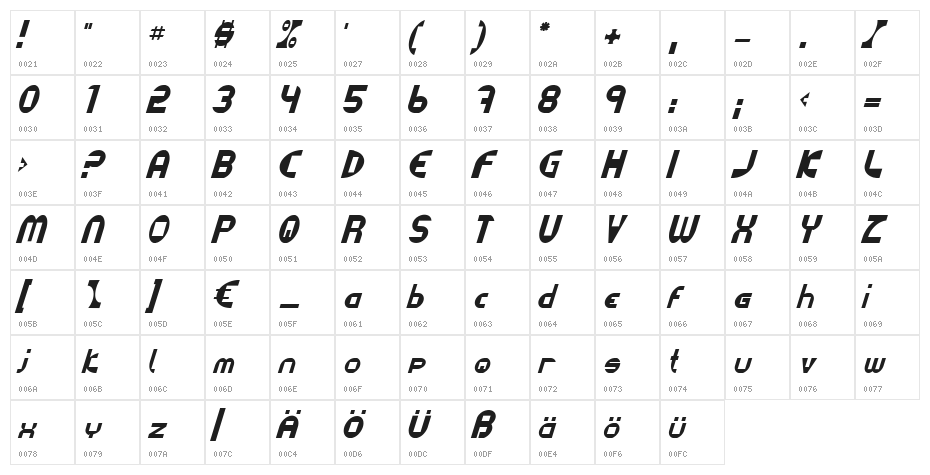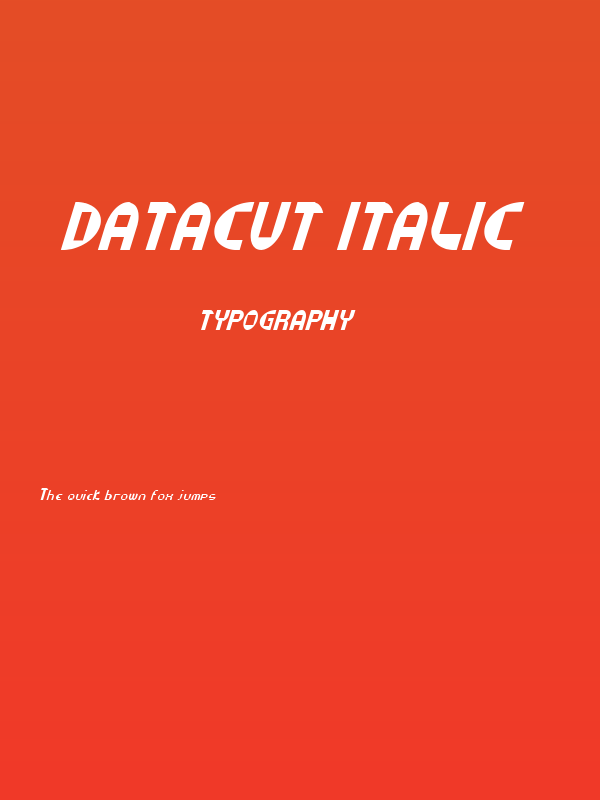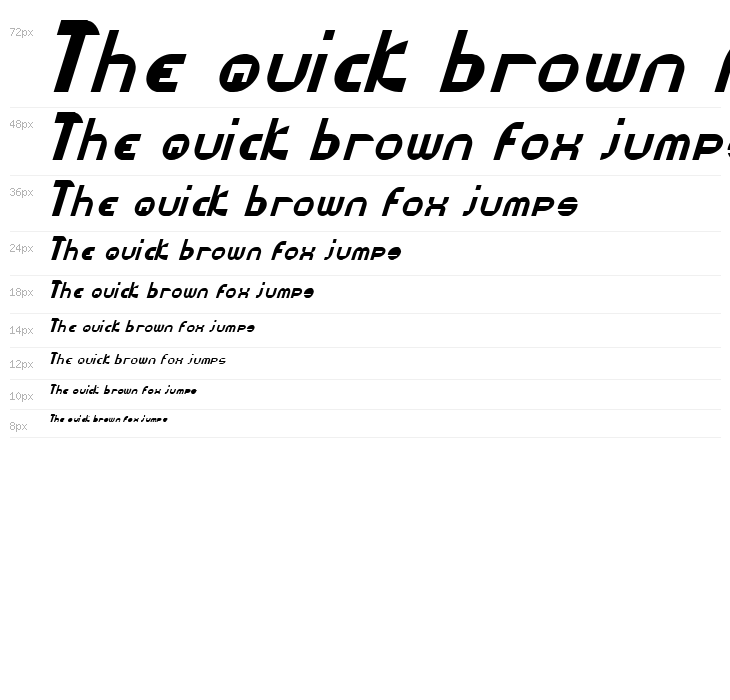
Datacut Italic Font
Datacut Italic Description
This font features a bold and dynamic design with an italicized slant, giving it a sense of motion and energy. The characters are constructed with sharp angles and clean lines, creating a futuristic and modern appearance. The uppercase letters are particularly striking, with unique geometric shapes that make them stand out. The lowercase letters maintain the same angular style, ensuring consistency across the typeface. Numbers and special characters are designed with the same attention to detail, making them easily readable while maintaining the overall aesthetic. This font is ideal for projects that require a bold statement and a contemporary feel.